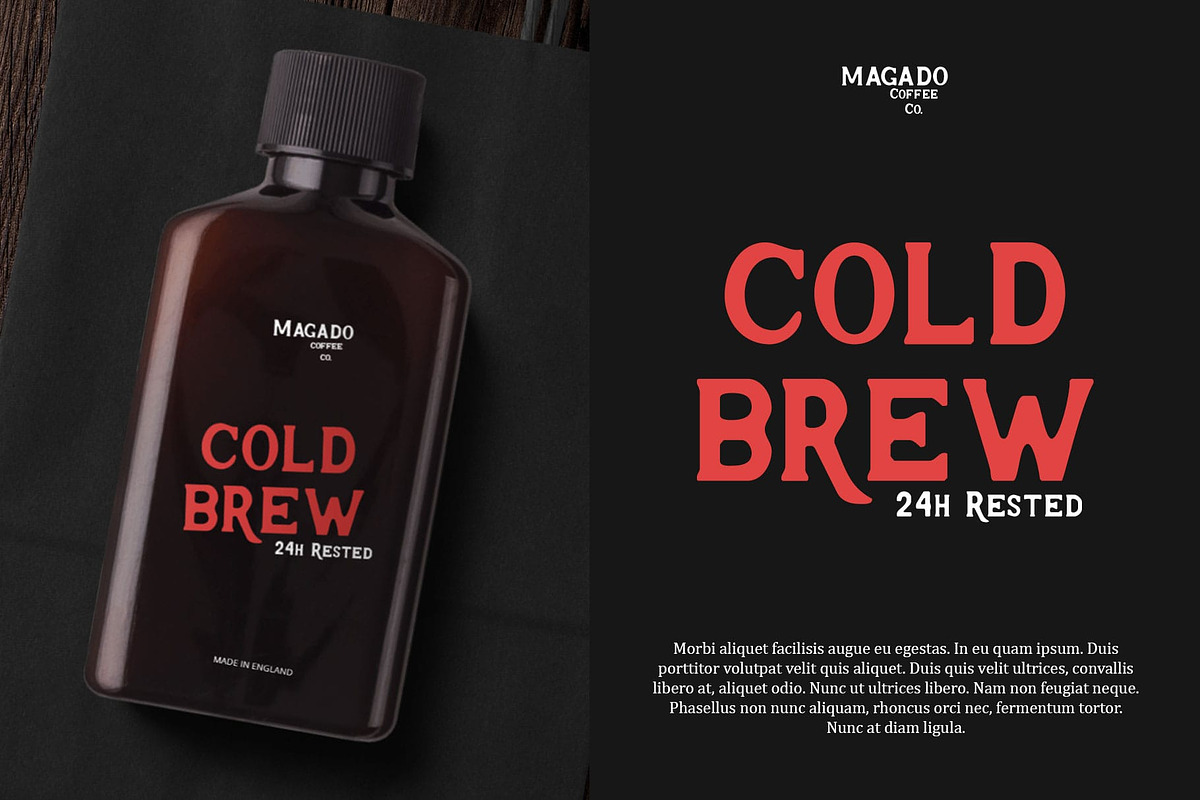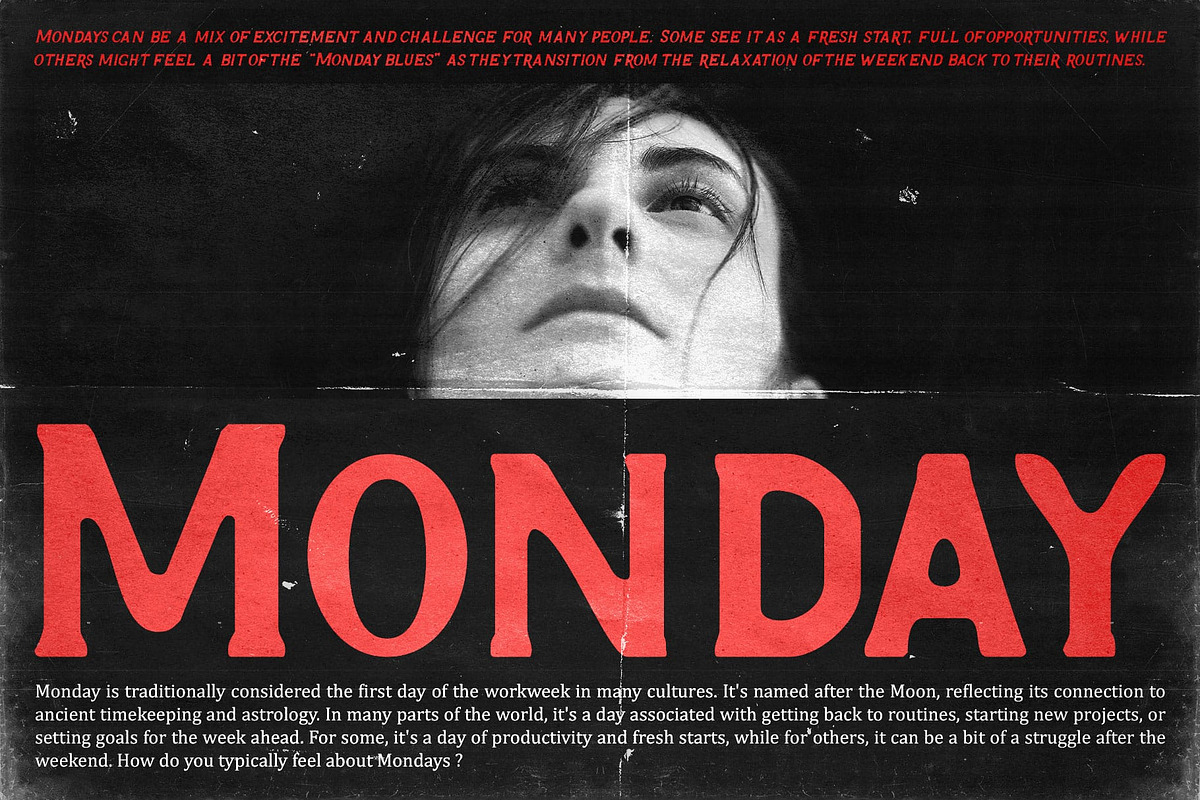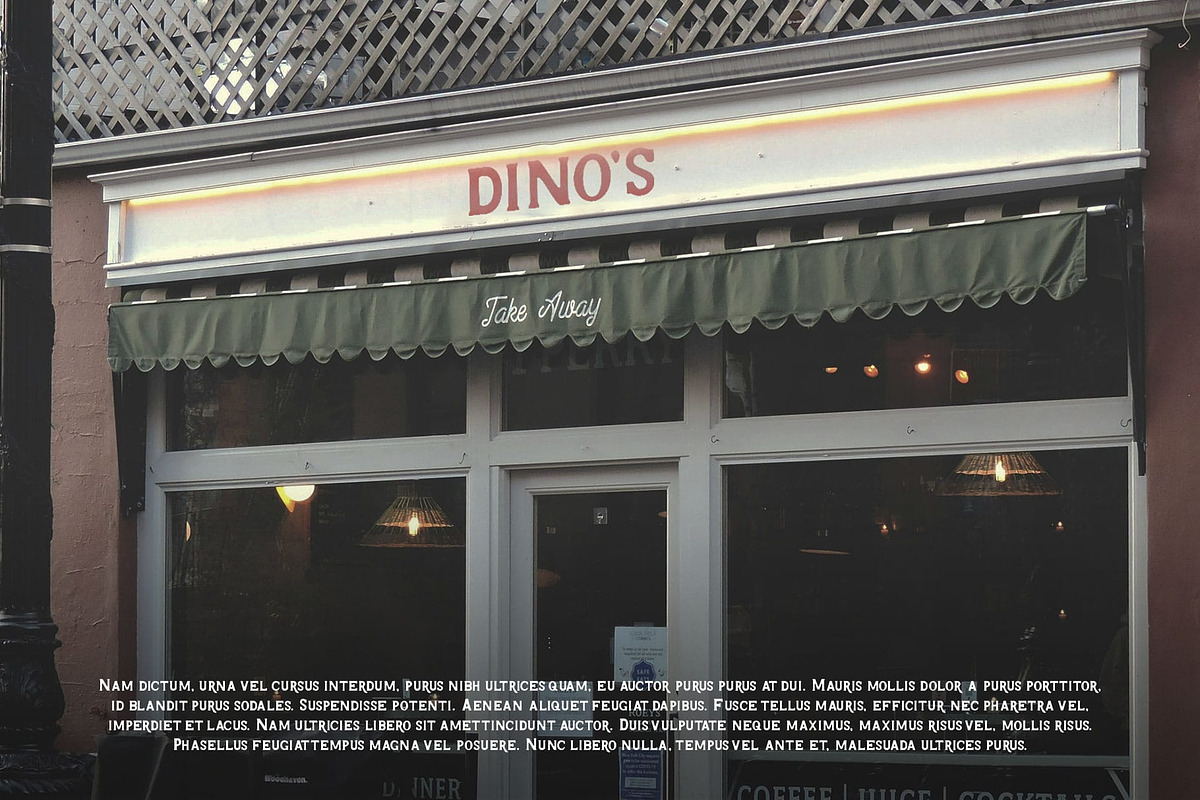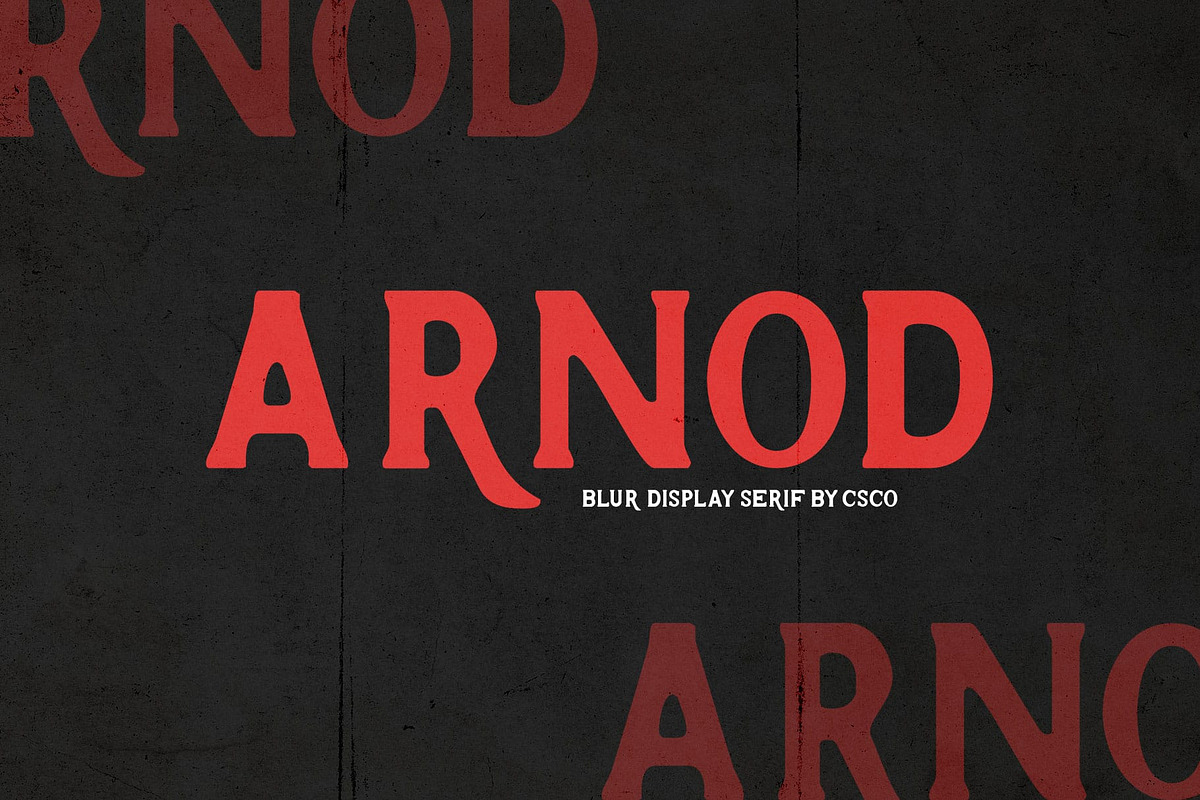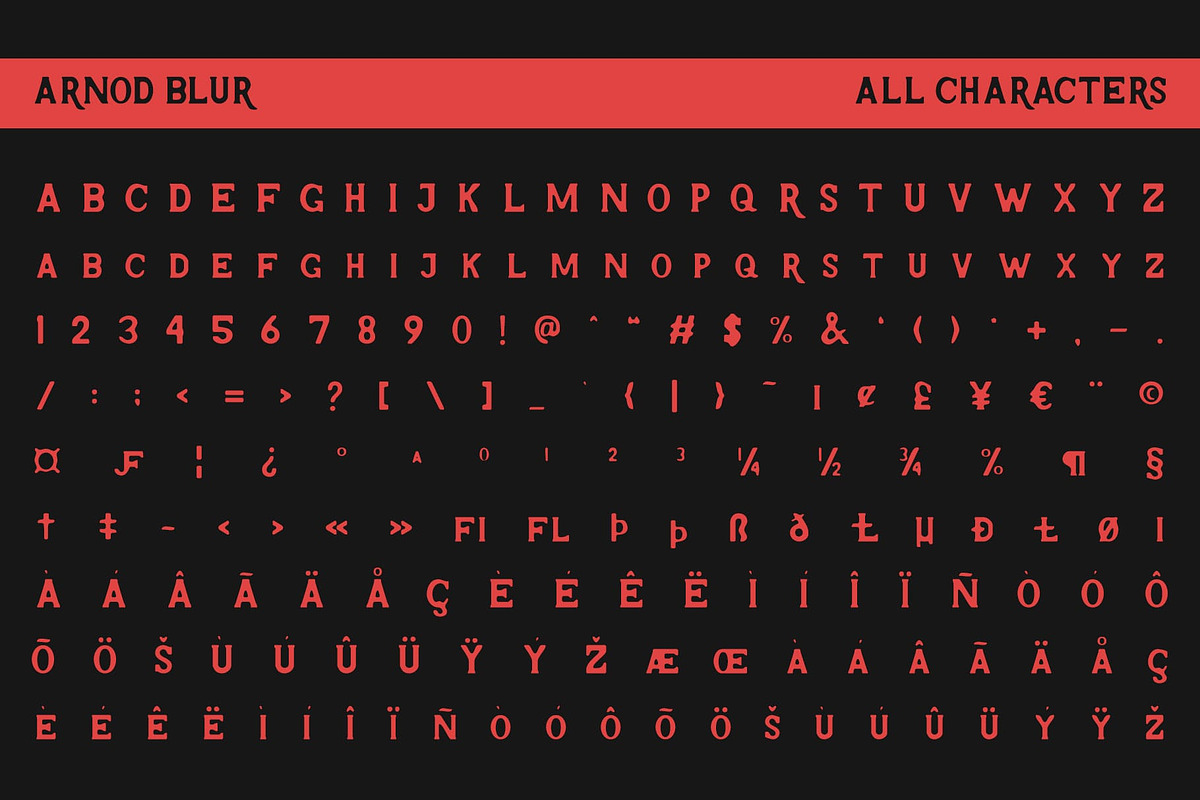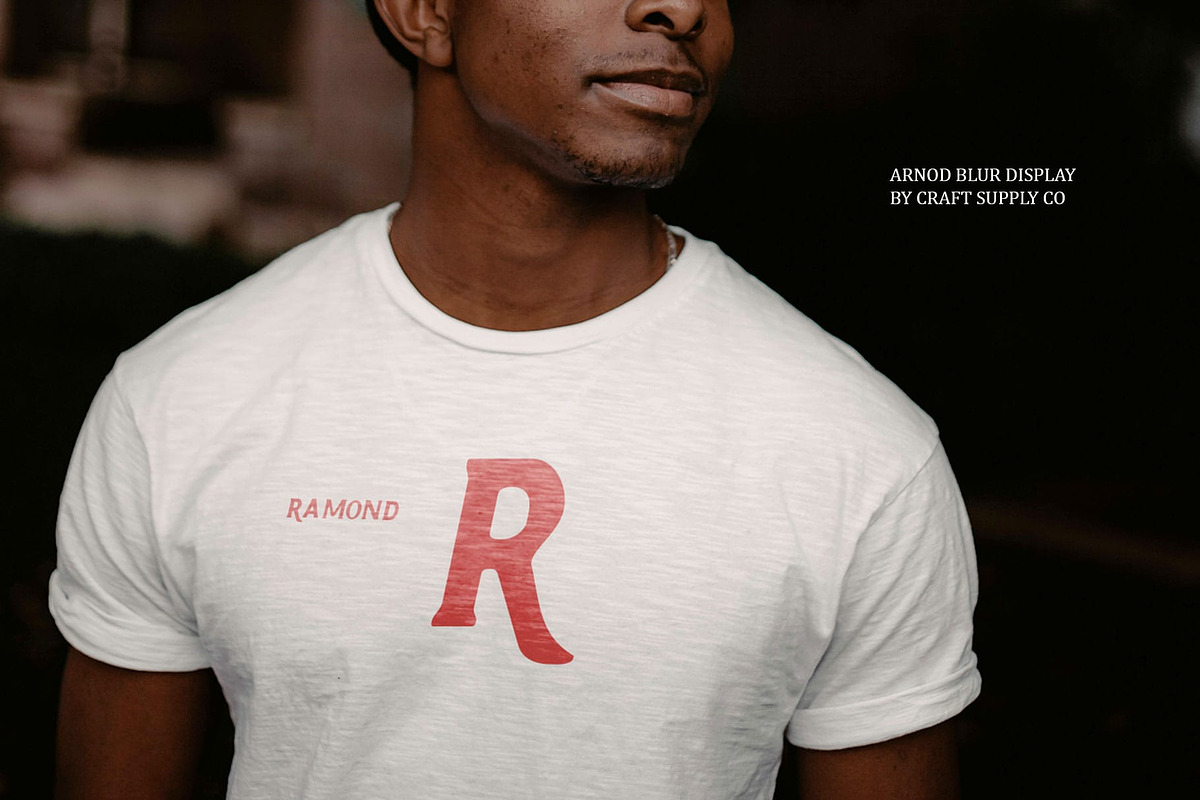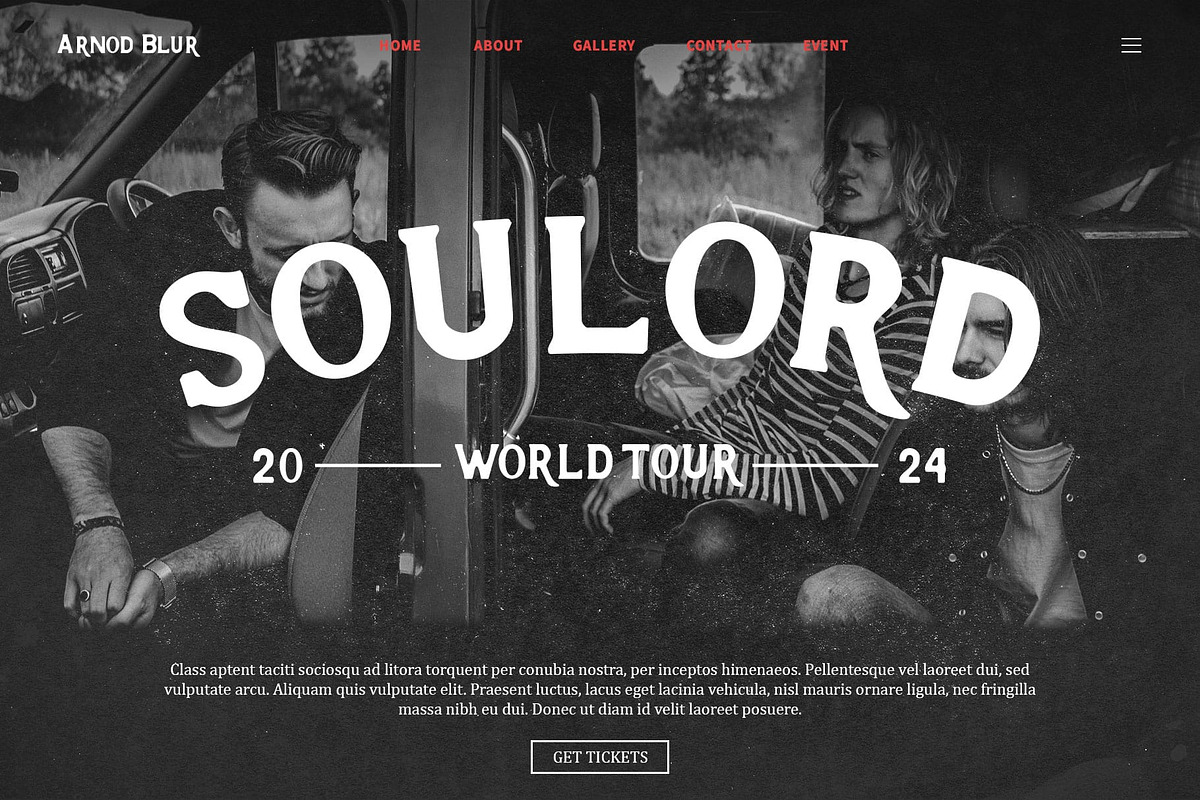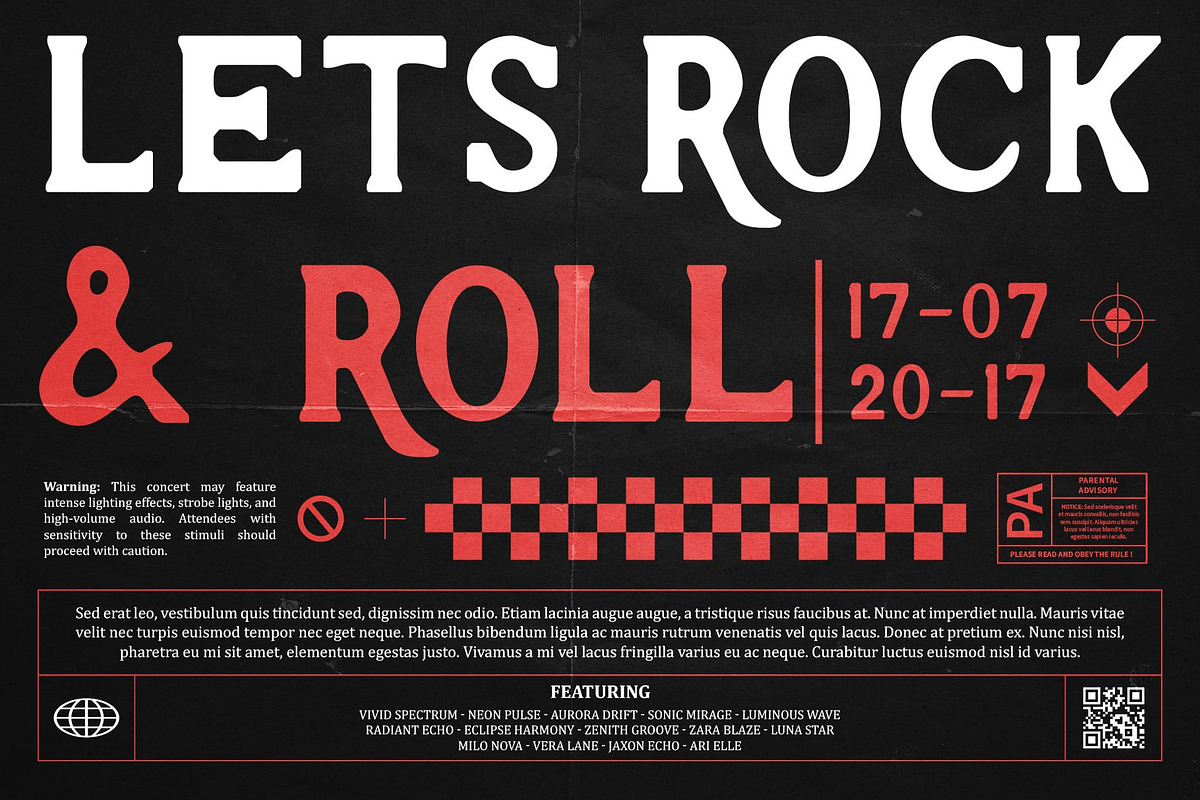
Arnod Blur
Arnod Blur – Bold Serif Font: Retro Strength with Vintage Depth
Bold Serif with a Blur Effect Arnod Blur is a bold serif font that exudes a retro vibe with its strong, masculine shape. The font is designed to deliver a commanding presence, making it ideal for projects requiring a bold and industrial look. The added blur effect introduces a vintage feel and visual depth, enhancing its overall appearance with intriguing dimensions.
Retro Vibe with Industrial Strength The strong, masculine shape of Arnod Blur captures a retro aesthetic while maintaining an industrial edge. Its bold serifs and robust character make it perfect for designs that need to convey power and impact, such as logos and headers.
Vintage Feel with Visual Depth The unique blur effect in Arnod Blur enriches the font with a vintage charm and dimensional quality. This effect adds layers of visual interest, giving the font a distinctive and memorable look that stands out in various design applications.
Versatile for Various Design Applications Arnod Blur offers versatility across different design contexts. Whether you’re creating striking logos, impactful headers, or other bold design elements, this font combines character strength with a unique blur effect, making it a standout choice for diverse creative projects.